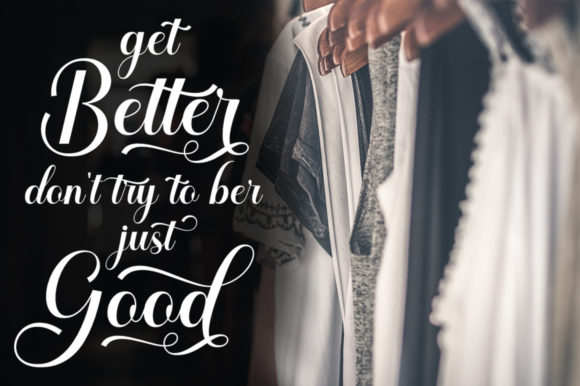
Anamelia Font
Anamelia Script is a calligraphy font with a classic style and a touch of elegance, inspired by the handwriting of ancient manuscripts. Carefully designed to work together in harmony that makes it very suitable for wedding media, book covers, greeting cards, logos, branding, business cards, and certificates, even for any design work that requires a classic, formal or luxurious.